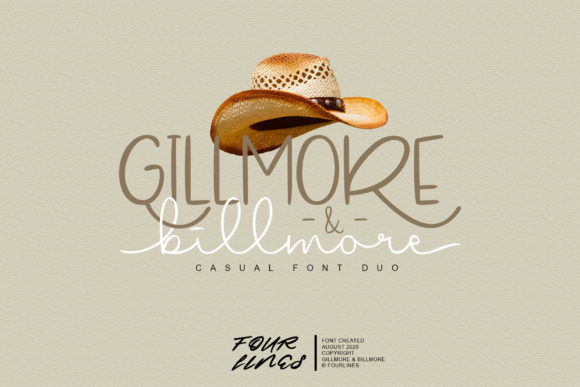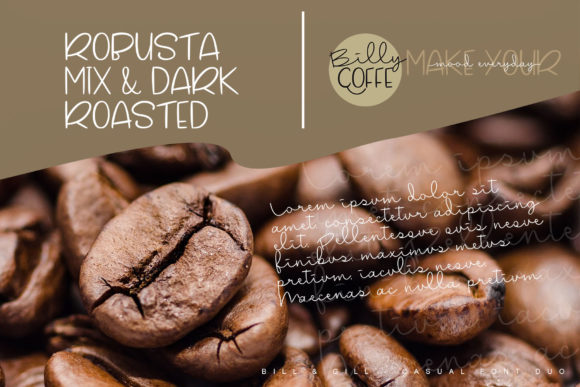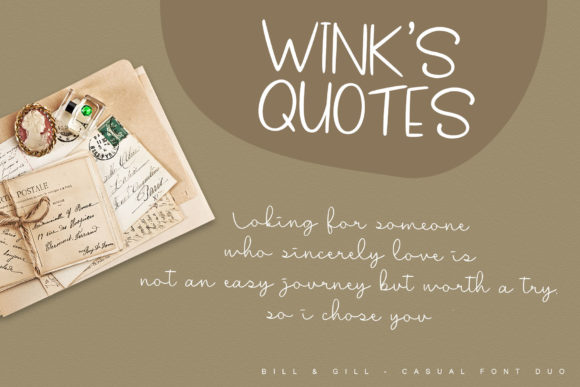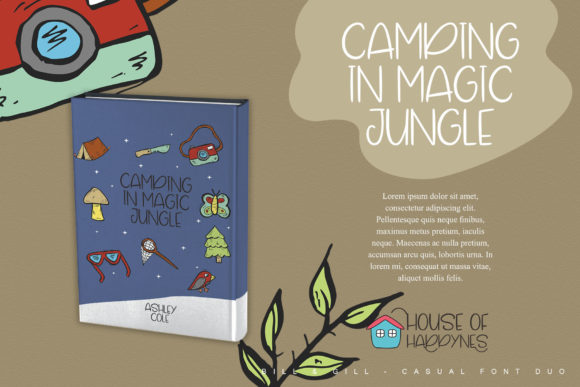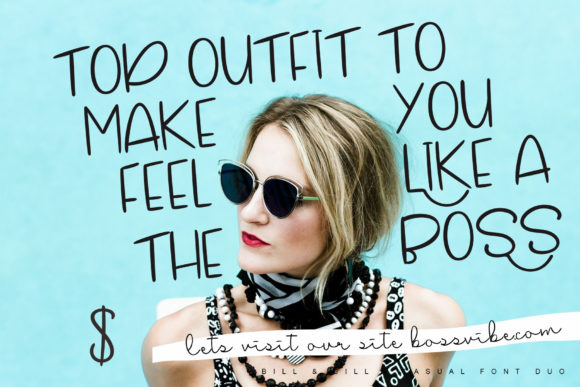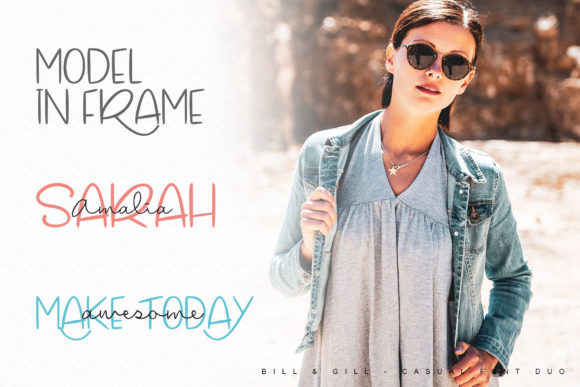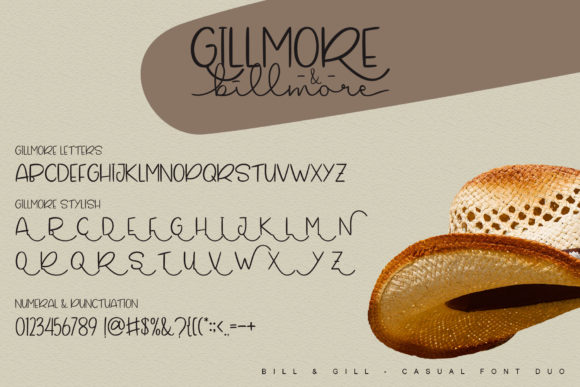
Gillmore & Billmore Font
Gillmore & Billmore is a beautiful and relaxed duo font (script and display). Fall in love with its incredibly versatile style and use it to create gorgeous wedding invitations, beautiful stationary art, eye-catching social media posts, and much more!